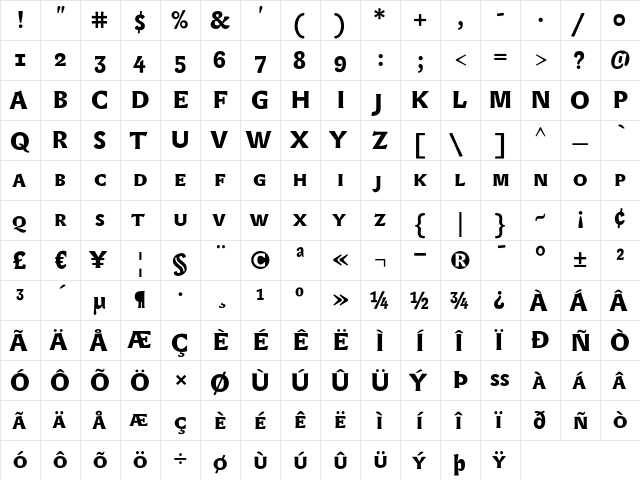
Lexicon Gothic SCOSF Bold
| Foundry | Frantisek Storm |
| Designer | Frantisek Storm |
Design Context for Lexicon Gothic SCOSF Typeface
Lexicon Gothic SCOSF takes a clean, functional approach — its unadorned letterforms prioritise legibility and work reliably across screen and print environments. The heavy weight commands attention and anchors typographic hierarchies.
A strong choice for UI design, app interfaces, bold signage, and corporate brand systems.
Font Pairing: Use Lexicon Gothic SCOSF for headlines alongside a lighter-weight sans or serif for body copy to establish clear visual hierarchy.
Pro Tip: Pair Lexicon Gothic SCOSF with a display or serif font for headlines — its neutral character makes it an excellent supporting player in complex typographic systems.